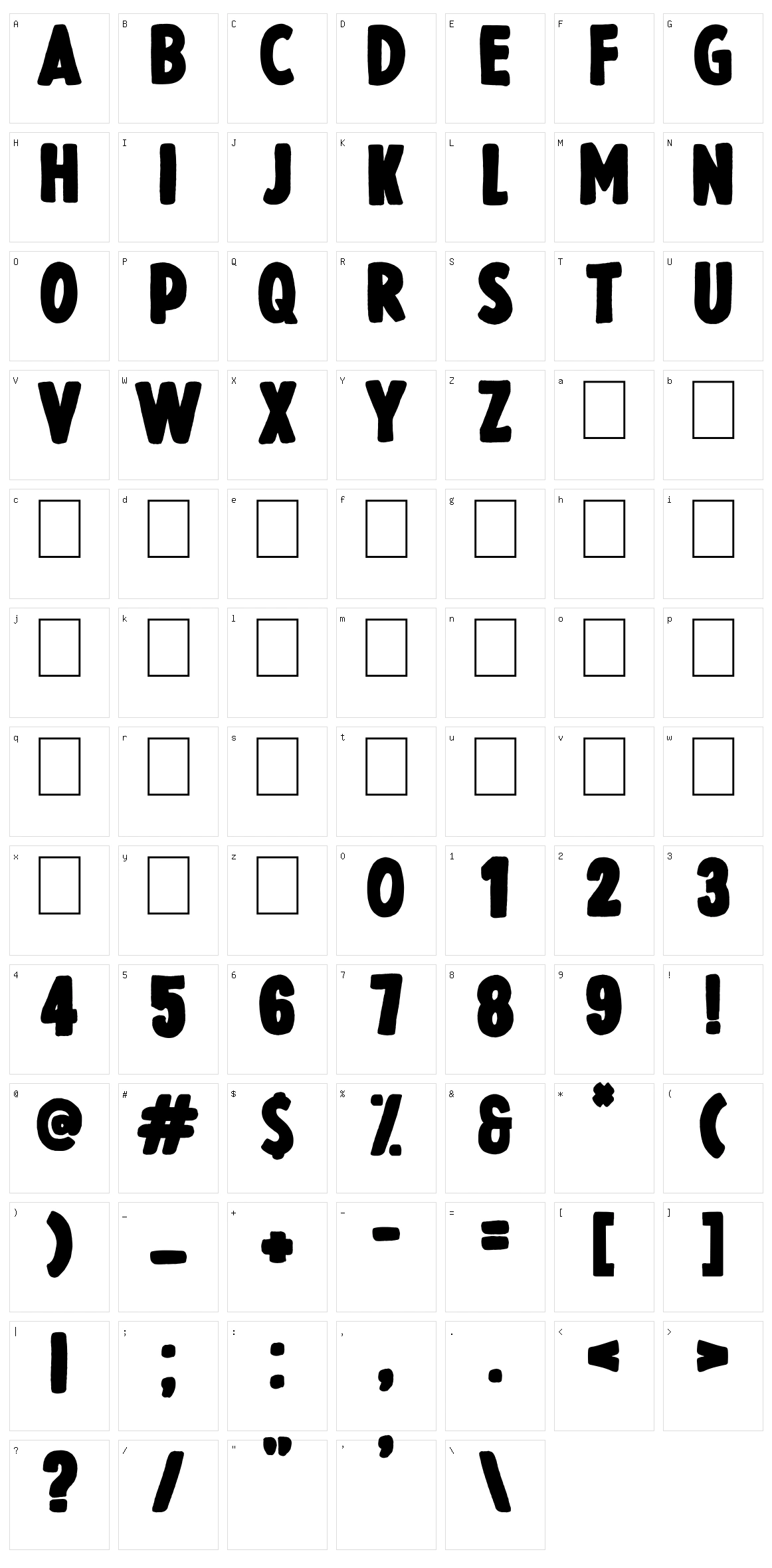
The free font Presque Normal is carefully designed by imagex, showcasing a thoughtful balance of creativity and usability and falls under the Cartoon font style. When you download the ZIP file, it contains only 18.88 KB of font files, making it lightweight and quick to download. Please review the license details below to understand permitted usage and distribution rights. If license information is not available, we recommend using this font for personal projects only or contacting the author directly for commercial usage permissions.